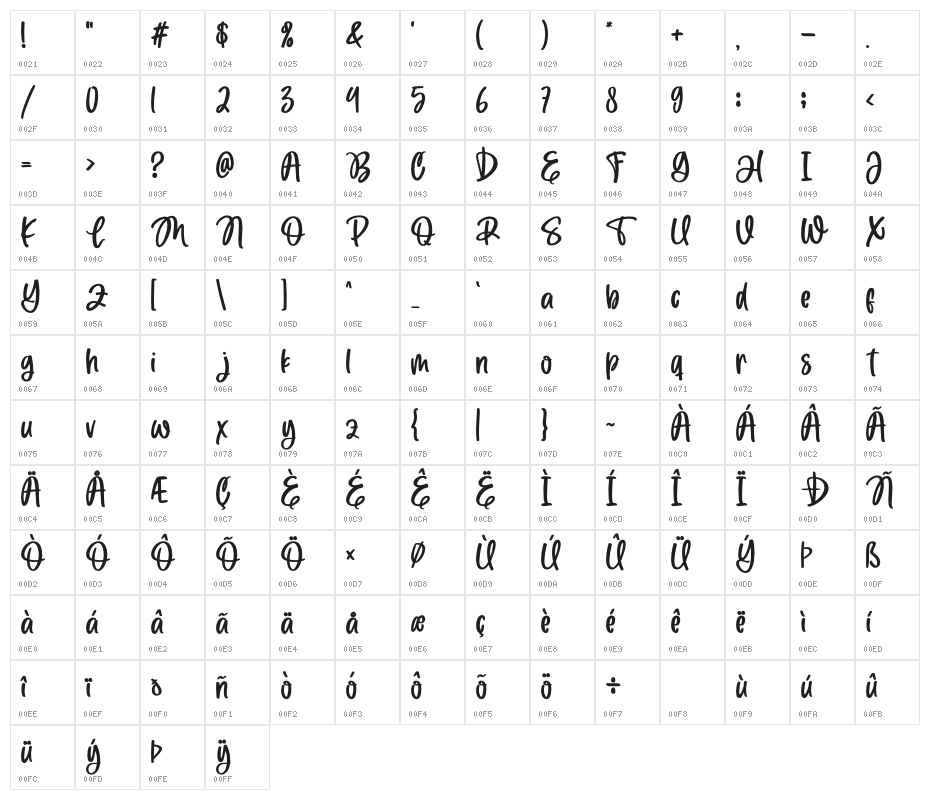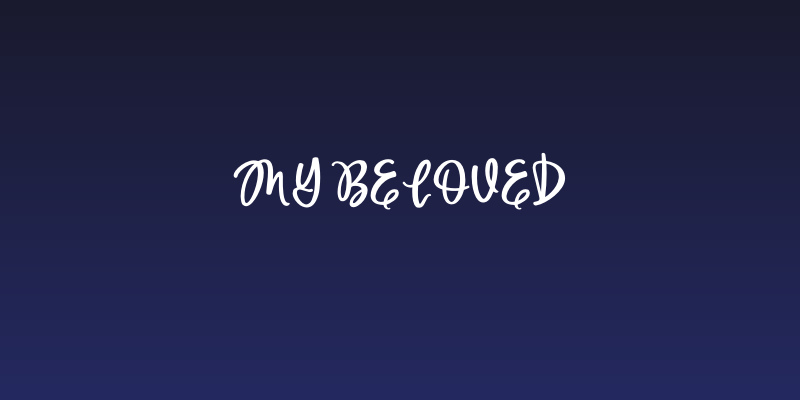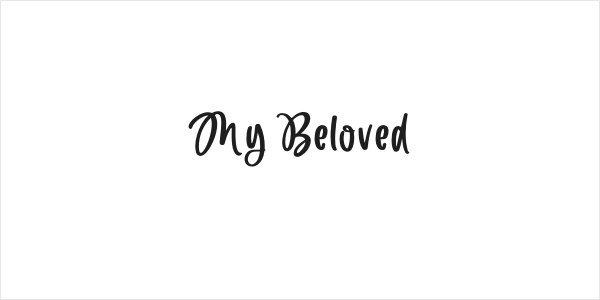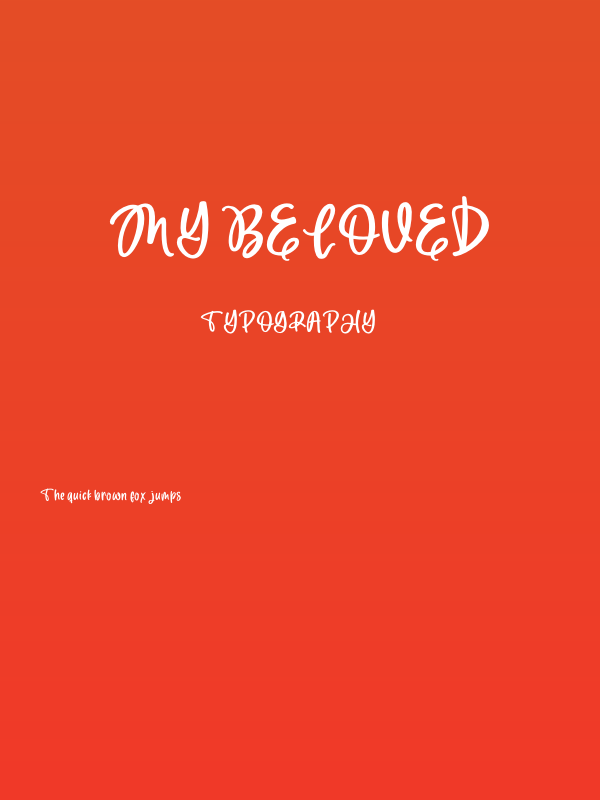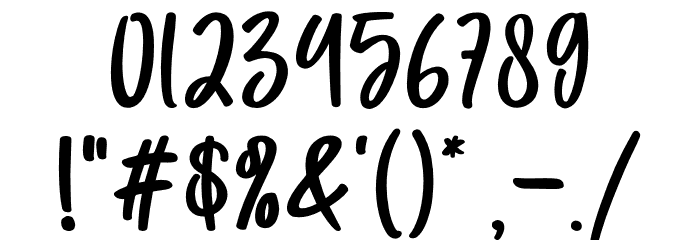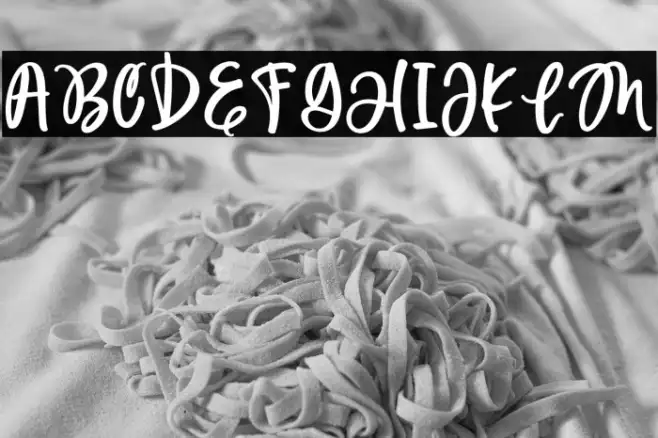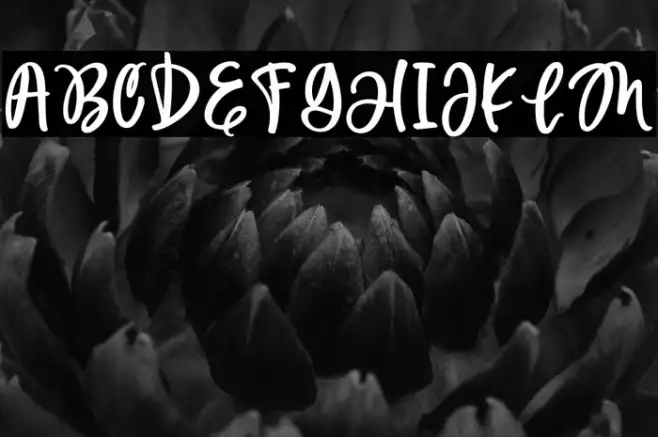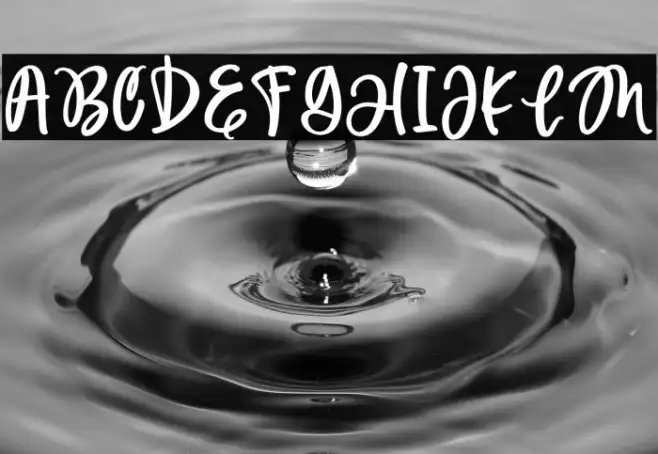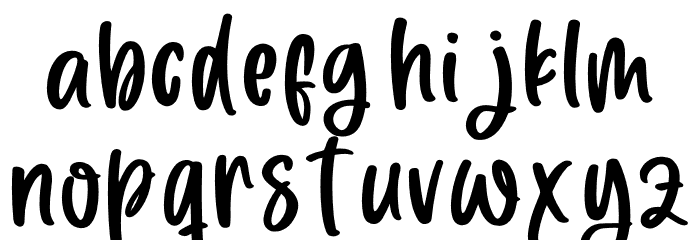
My Beloved Font
My Beloved Description
This font exudes a playful and energetic vibe with its bold, handwritten style. The letters are characterized by their flowing, cursive-like forms, yet maintain a clear and legible structure. Each character has a unique flair, with varying stroke thickness that adds to its dynamic appearance. The uppercase letters are particularly expressive, with loops and swirls that give them a whimsical touch. The lowercase letters complement this with a more subdued but equally lively design. The numbers and special characters maintain the same spirited style, ensuring consistency across all elements. This font is perfect for projects that require a personal and informal touch, such as invitations, greeting cards, or playful branding.